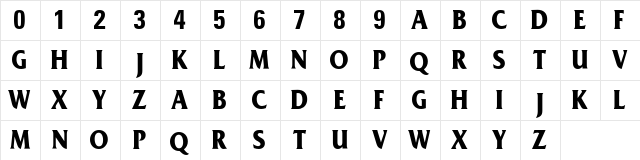
Complete NHL Phoenix Regular glyph index. Displaying only characters natively supported by NHL Phoenix Regular font.
NHL Phoenix is a composed and adaptable typeface that performs quietly and consistently across a wide range of design contexts.